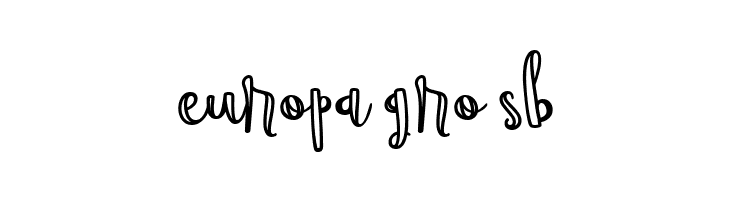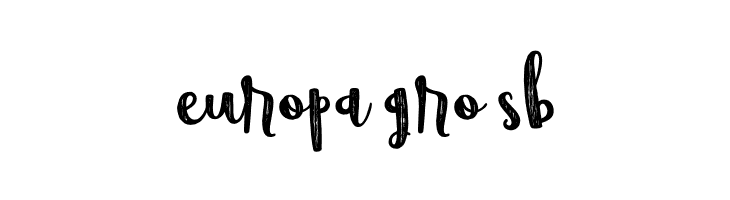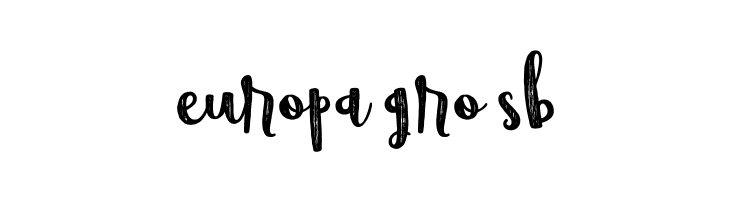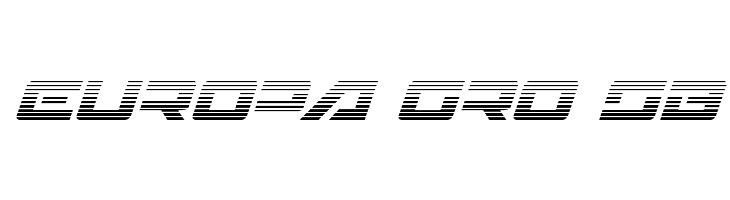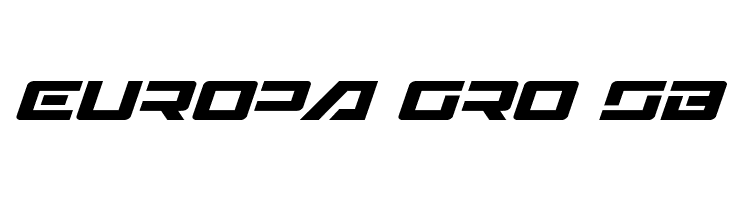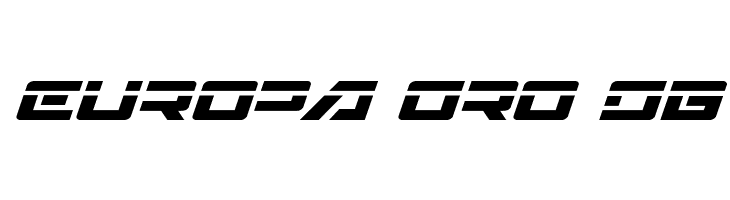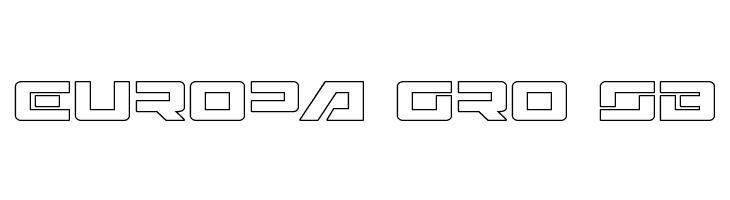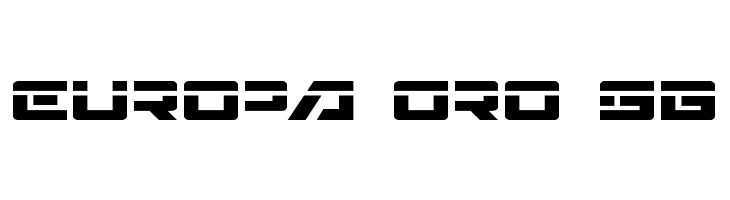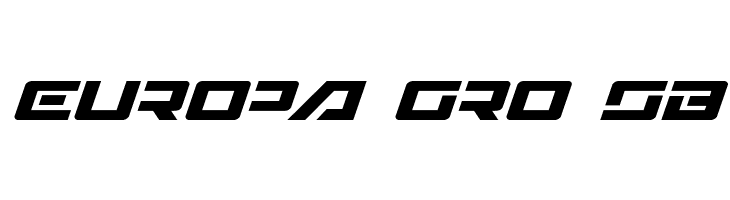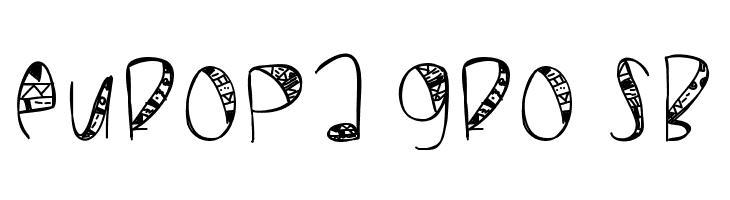
A bold, condensed, and italicized font with a futuristic and sporty design.
A bold, italic, and condensed font with a modern, angular design.
A bold, geometric font with a futuristic and digital aesthetic.
A bold, futuristic font with geometric, stencil-like characters.
A bold, angular, and futuristic font with expanded and italicized characters.
A bold, expanded, and italicized font with a futuristic and angular design.
A futuristic, line-based font with a gradient effect and geometric design.
A futuristic, striped font with a bold, geometric design.
A dynamic, futuristic font with bold, italicized characters and a strong horizontal line motif.
A futuristic italic font with gradient lines and a dynamic, speedy appearance.
A bold, futuristic font with a dynamic halftone effect.
A bold, futuristic font with a halftone effect and geometric shapes.
A bold, italicized font with a futuristic halftone effect and angular design.
A bold, italicized font with a futuristic halftone effect and geometric structure.
A bold, italicized font with a futuristic and angular design.
A bold, futuristic font with geometric shapes and a stencil-like appearance.
A bold, futuristic font with angular, geometric letterforms.
A bold, italicized font with a futuristic and angular design.
A futuristic, angular italic font with bold strokes and geometric shapes.
A bold, angular font with a futuristic and dynamic design.
A bold, geometric outline font with a futuristic and modern style.
A bold, geometric outline font with a futuristic and digital style.
A modern, italicized outline font with a futuristic and dynamic style.
A modern, geometric outline font with an italic slant and sharp, angular lines.
A bold, angular, and slightly italicized font with a futuristic and dynamic style.
A bold, angular, and slightly italicized font with a futuristic design.
A bold, italicized font with sharp angles and a futuristic design.
A whimsical, hand-drawn font with intricate patterns and playful designs.
A playful, handwritten font with a casual and whimsical style.
A playful, hand-drawn outline font with bold, whimsical letterforms.
A bold, hand-drawn font with a textured, artistic style.
A bold, hand-drawn font with a rough, textured appearance and playful style.
A bold, expressive handwritten font with a playful, artistic style.